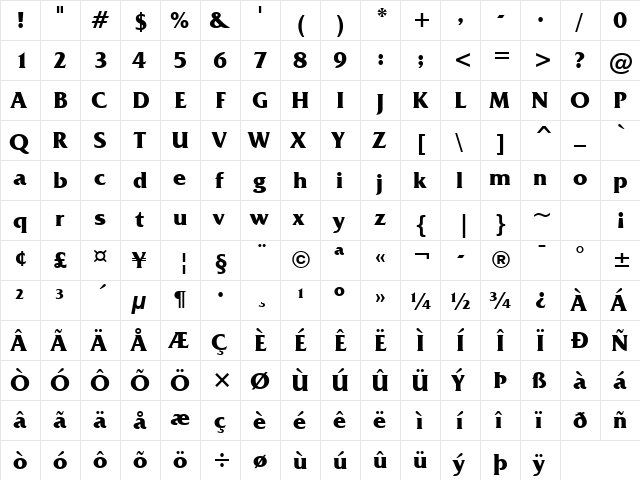
FrizQuadrata BT Bold
Design Context for FrizQuadrata BT Typeface
FrizQuadrata BT is a composed and adaptable typeface that performs quietly and consistently across a wide range of design contexts. Its bold stroke weight gives it real presence on the page.